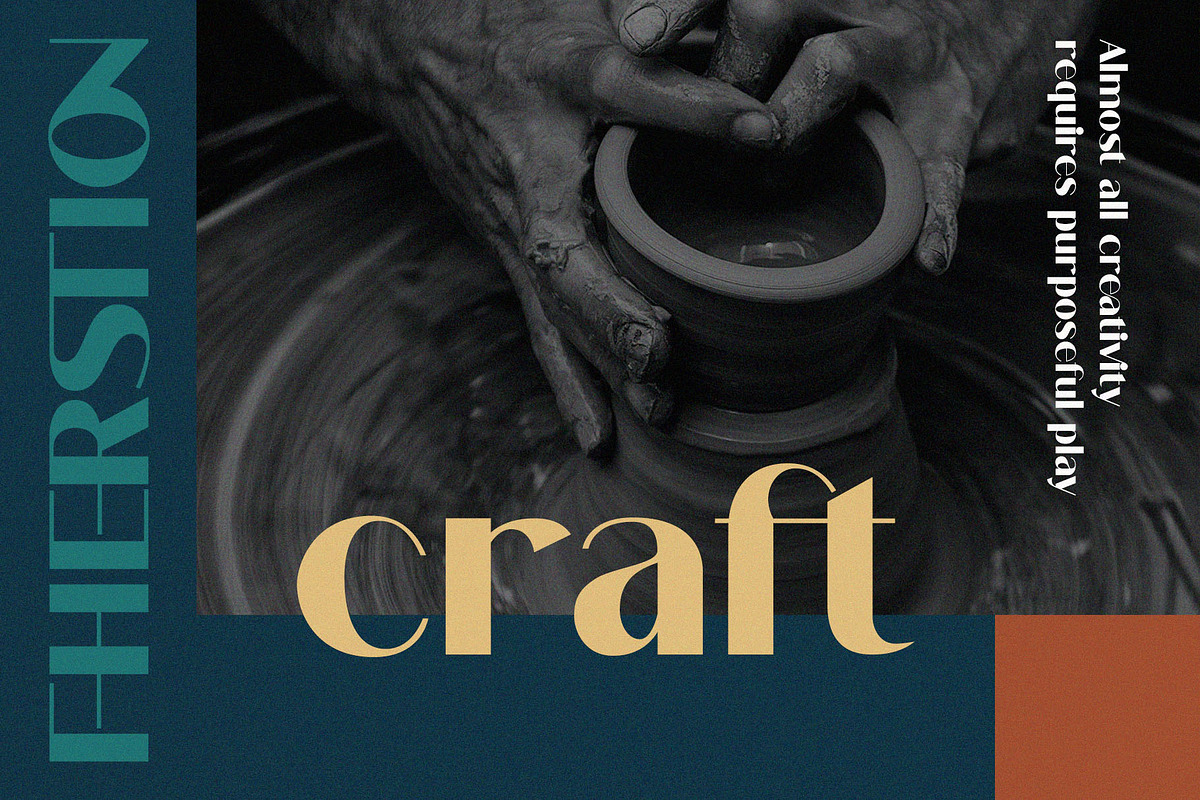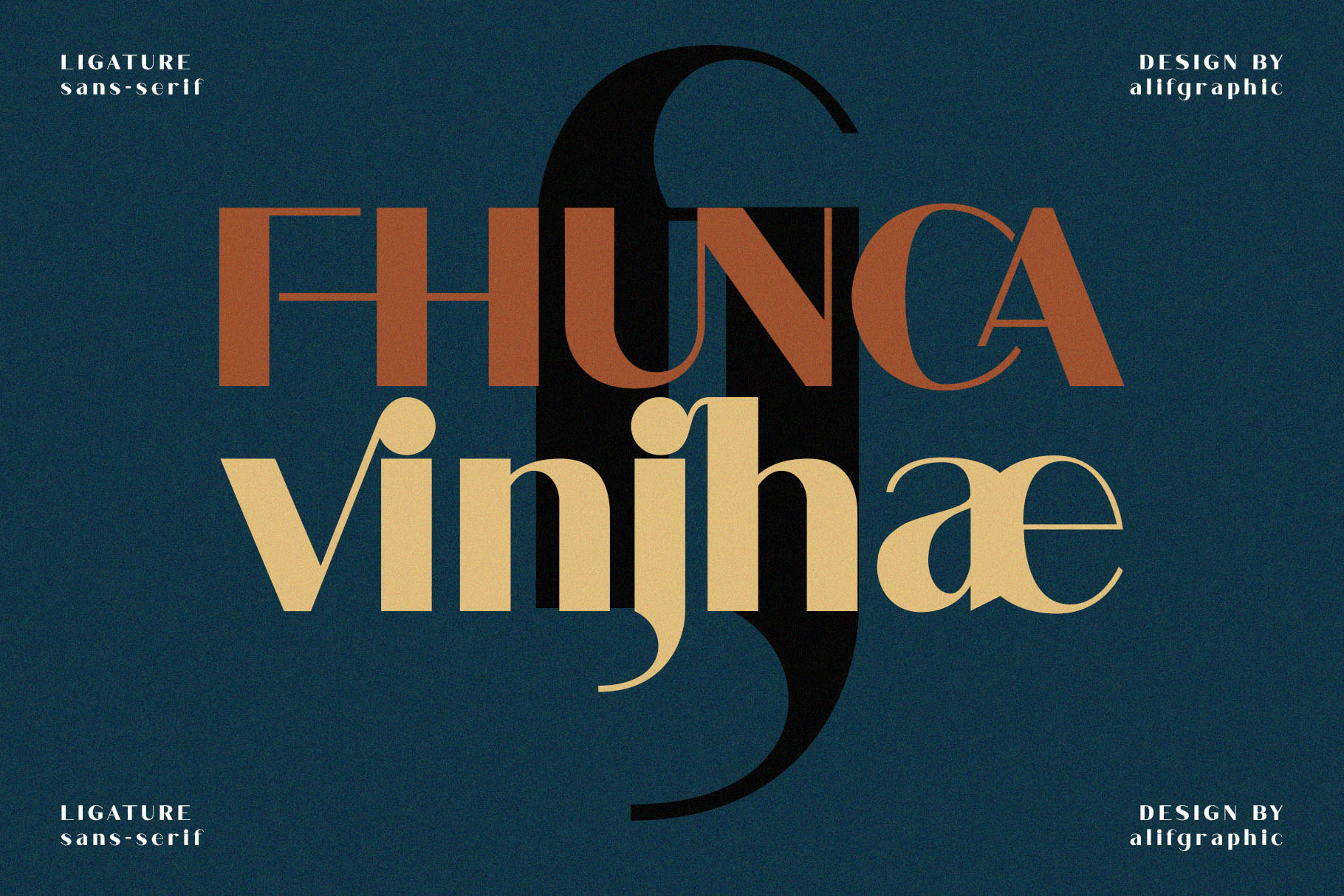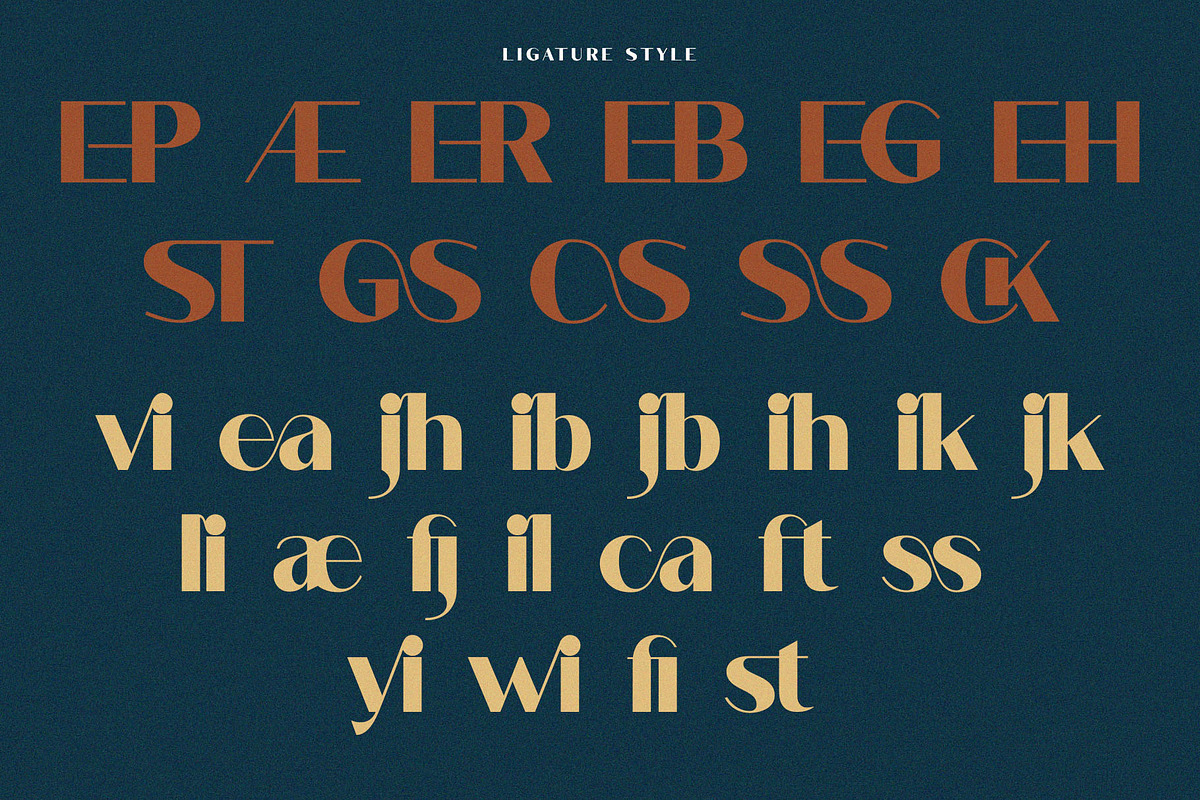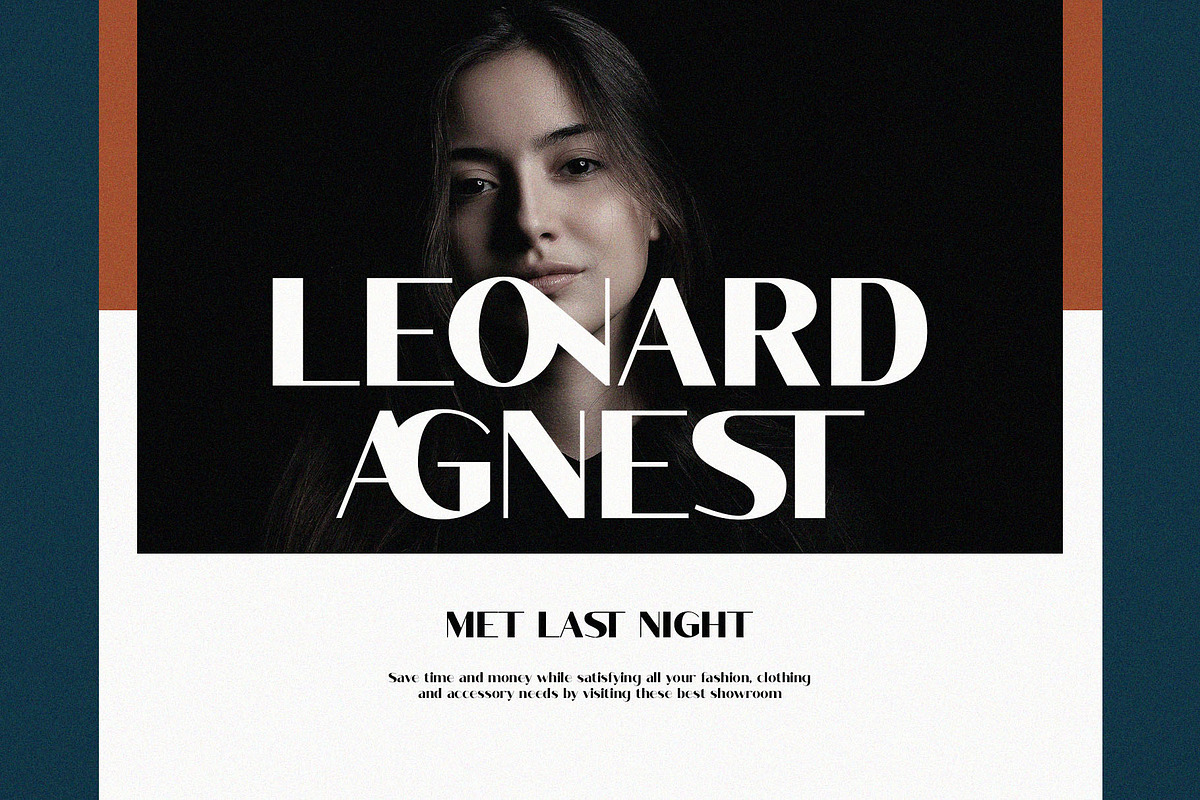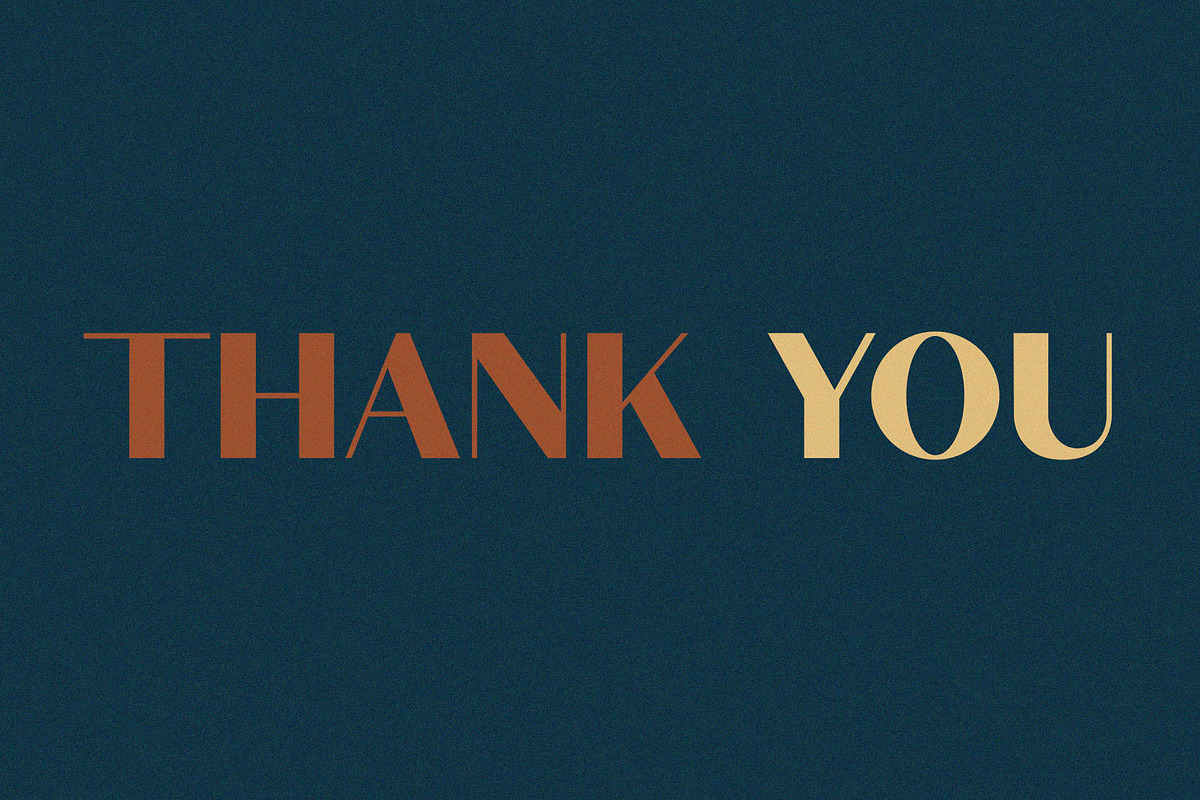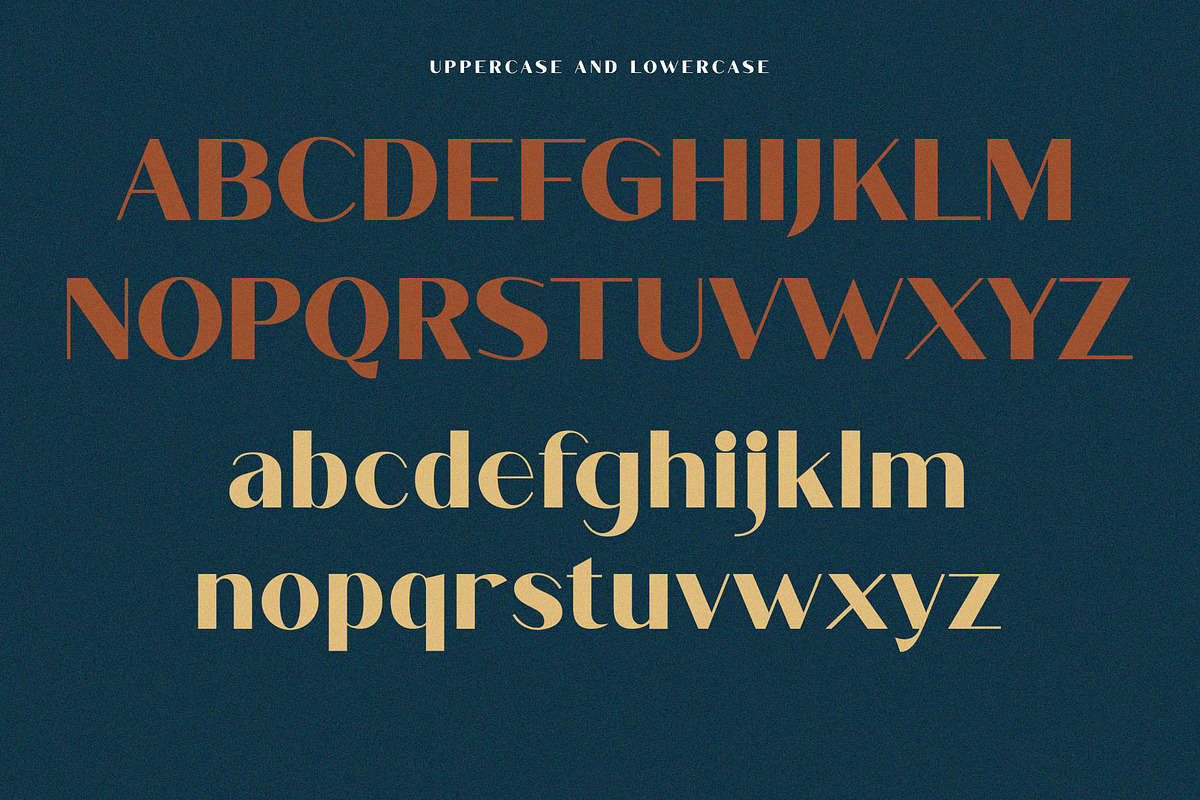
Fhunca Vinjhae Ligature Font
Introducing 'Fhunca Vinjhae' Font:
A beautiful series of letters is encapsulated in this ‘Fhunca Vinjhae’ font. Neat lettering is perfect for writing needs that are modern and pleasing to the eye, there is a Modern impression but still looks Elegant when used for writing. You can have fun and be creative using this font product we made, because the results will definitely be very satisfying. This font is PUA encoded which means you can access all glyphs and swashes with ease.
Ideal for:
- Luxury Brands
- Advertising Campaigns
- Visual Identity Projects
- Social Media Designs
- Personal Branding
- Ready for Creative Expression
- Immaculately Crafted Letters